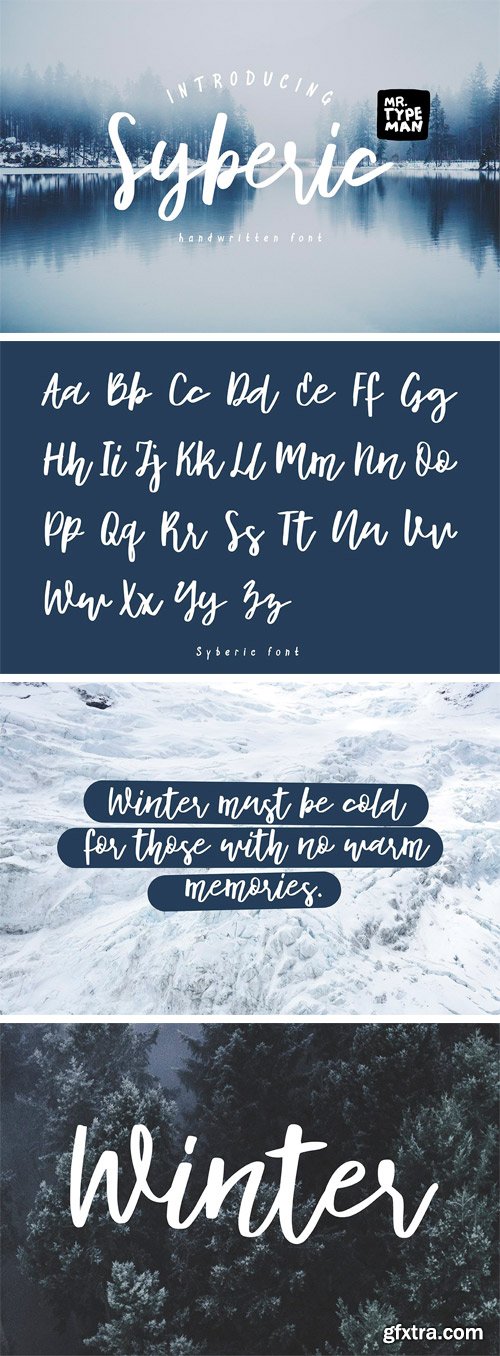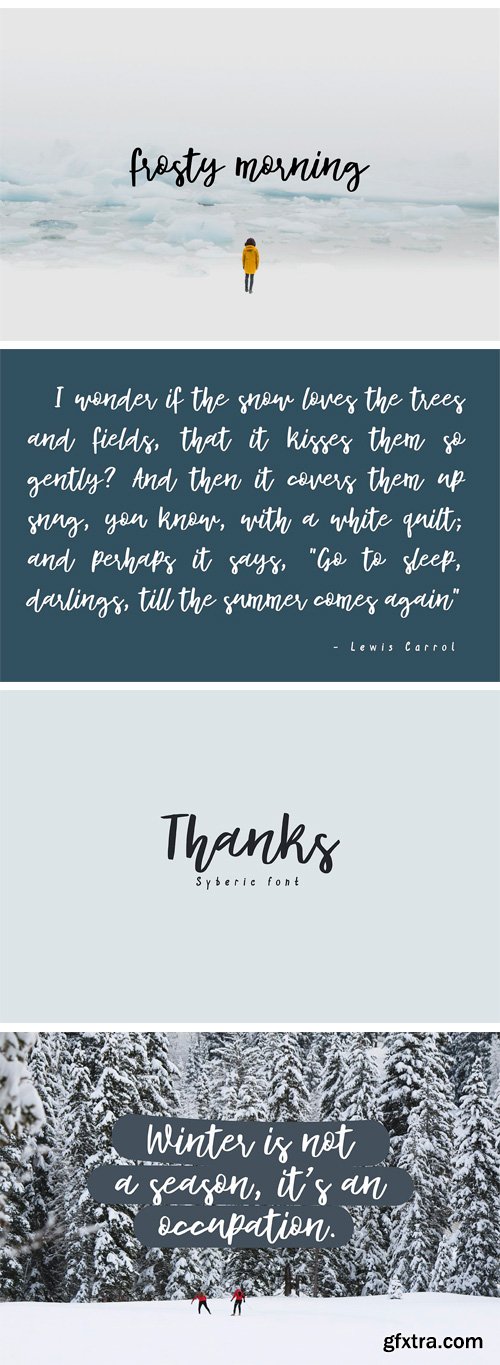
Introducing: Syberic – a handwritten font with a natural flow. It's a perfect choice for everyday design needs, including your next project! Syberic comes with uppercase, lowercase, standard punctuation, numerals and special letters for most of the European languages.